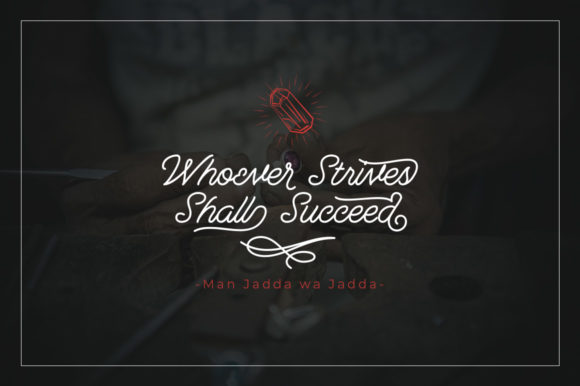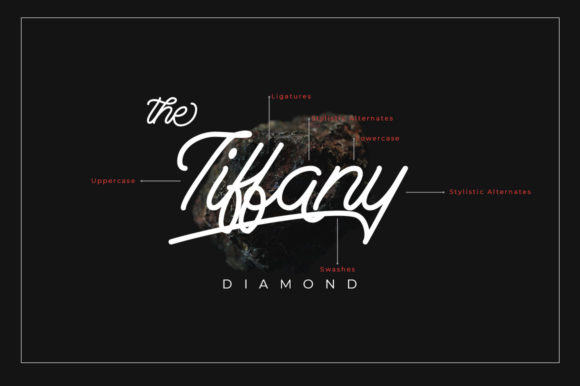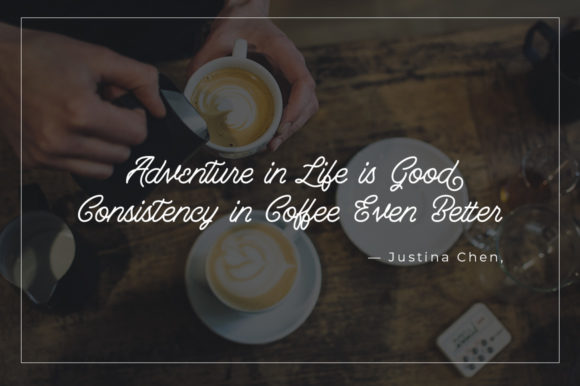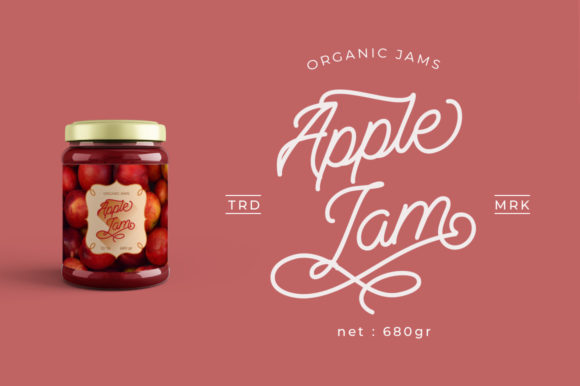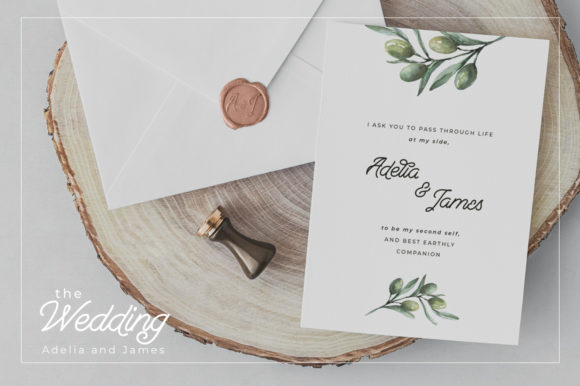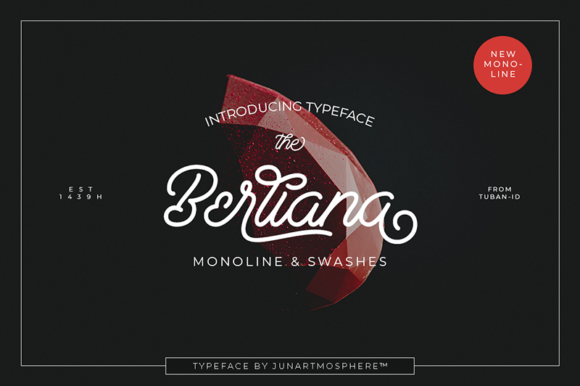
Introducing Berliana Script Font: Elevate Your Designs with Elegance and Sophistication
In the world of typography, few fonts manage to capture the essence of elegance and femininity as effortlessly as the Berliana Script Font. Inspired by the fluid strokes of handwriting with markers, Berliana brings a touch of sophistication and luxury to any design project. Whether you’re crafting wedding invitations, designing logos, or developing a brand identity, Berliana Script Font is the perfect choice for those seeking to infuse their work with a dash of upscale chic.
The Inspiration Behind Berliana
Berliana’s origins are rooted in the desire to mimic the organic, flowing lines of marker-pen handwriting. This inspiration is evident in its smooth, connected letters that glide across the page with grace. The font’s creation aimed to capture the elegance and spontaneity of handwritten text, translating it into a digital format that can be used across various platforms and design applications.
Elegance and Versatility
One of the standout features of Berliana Script Font is its elegant feel. This characteristic makes it exceptionally versatile, suitable for a wide range of design projects. From the intricate details of wedding invitations to the bold statements of logos and branding materials, Berliana adds a layer of sophistication that is hard to achieve with other fonts.
Perfect for Luxurious and Upscale Designs
For designers and crafters aiming to create luxurious and upscale designs, Berliana Script Font is an invaluable asset. Its refined appearance instantly elevates the aesthetic of any project, lending it a high-end feel that resonates with audiences. Whether you’re working on branding for a luxury goods company, creating bespoke stationery, or designing packaging for a premium product, Berliana can help you achieve your design goals with style.
A Favorite Among Wedding Designers
Wedding designers and stationery crafters particularly appreciate Berliana for its romantic and feminine charm. The font’s elegant swashes and beautiful letterforms make it ideal for wedding invitations, save-the-date cards, and other wedding-related stationery. It helps set the tone for a sophisticated and memorable wedding celebration, making it a popular choice among designers in this niche.
Beyond Typography: Included Logos and Illustrations
To further enhance its value, Berliana Script Font comes with a bonus collection of amazing logos and illustrations. These additional resources provide designers with a solid starting point for their projects, saving time and inspiring creativity. The inclusion of these graphics underscores the font’s versatility and demonstrates its potential to be a comprehensive design solution.
Why Choose Berliana Script Font?
Choosing Berliana Script Font for your design projects comes with numerous benefits:
• Elegance: Adds a touch of sophistication and luxury to any design.
• Versatility: Suitable for a wide range of projects, from wedding stationery to corporate branding.
• Femininity: Brings a feminine touch that is perfect for designs targeting a female audience or requiring a delicate aesthetic.
• Readability: Despite its elegant and cursive nature, Berliana maintains a high level of readability, making it practical for various applications.
Berliana Script Font is more than just a typeface; it’s a design companion that can elevate your work to new heights of elegance and sophistication. Its inspiration from marker-pen handwriting, combined with its luxurious feel and versatility, makes it an indispensable tool for designers and crafters. Whether you’re creating wedding invitations, logos, or branding materials, Berliana Script Font, along with its bonus logos and illustrations, offers the perfect blend of style and functionality to make your designs stand out.
Embrace the beauty and elegance of Berliana Script Font in your next design project and experience the difference it can make in creating stunning, upscale, and memorable designs.